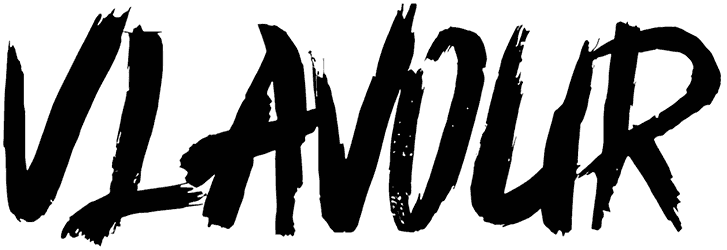
Mortal Coil Font
Download Mortal Coil now and start writing your text with a brush that seemingly runs out of paint halfway through the character, interestingly achieving a natural and playful look. This handwritten scribble font comes just in capitals but offers two different versions for each letter.
Moreover, the included numerals are limited, but even so, Mortal Coil does add a pretty creative and unique sort of modernity to your website header, signage, packaging, games, and more.